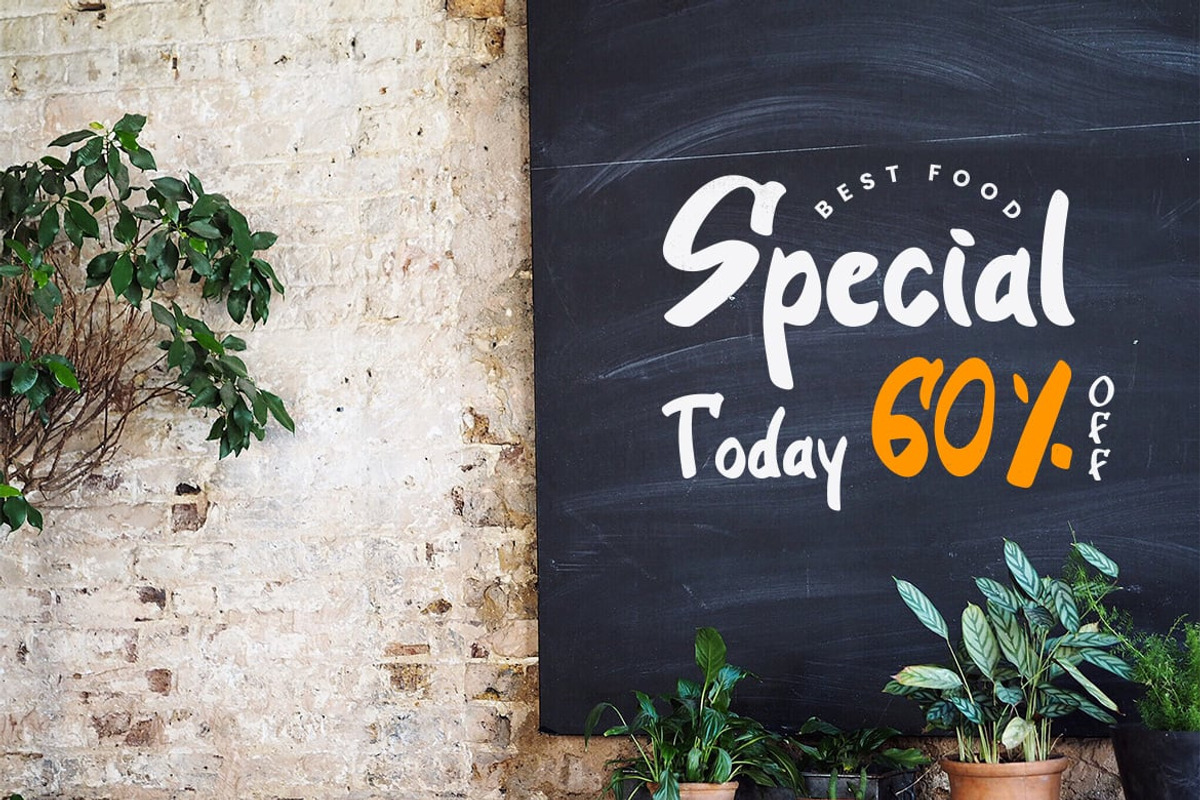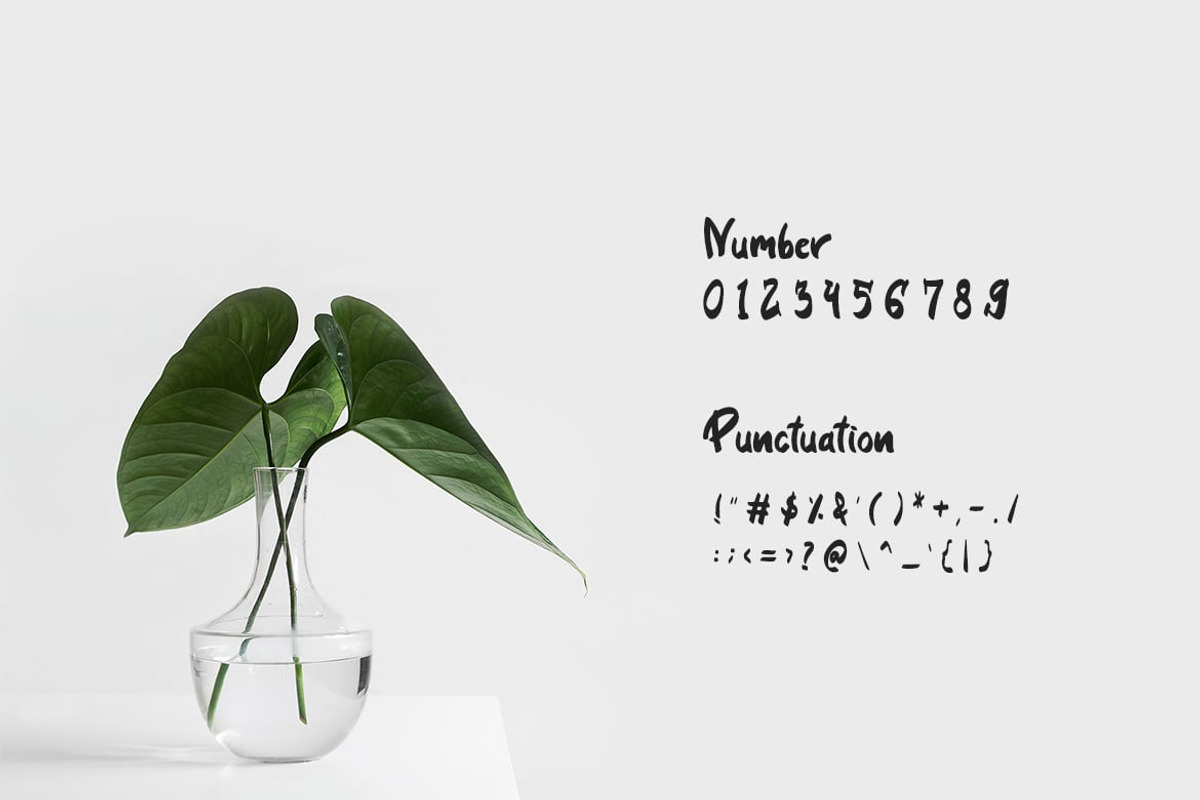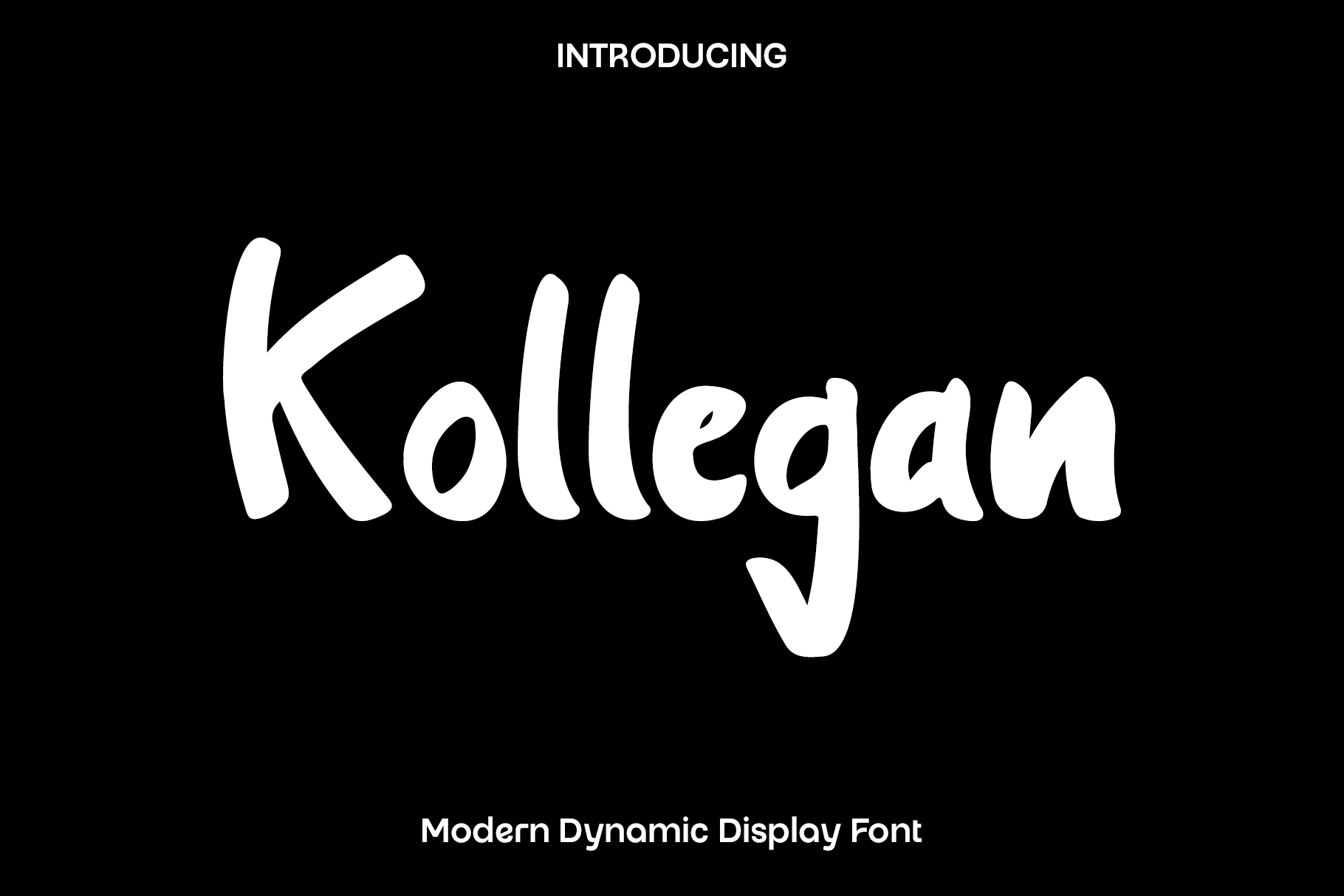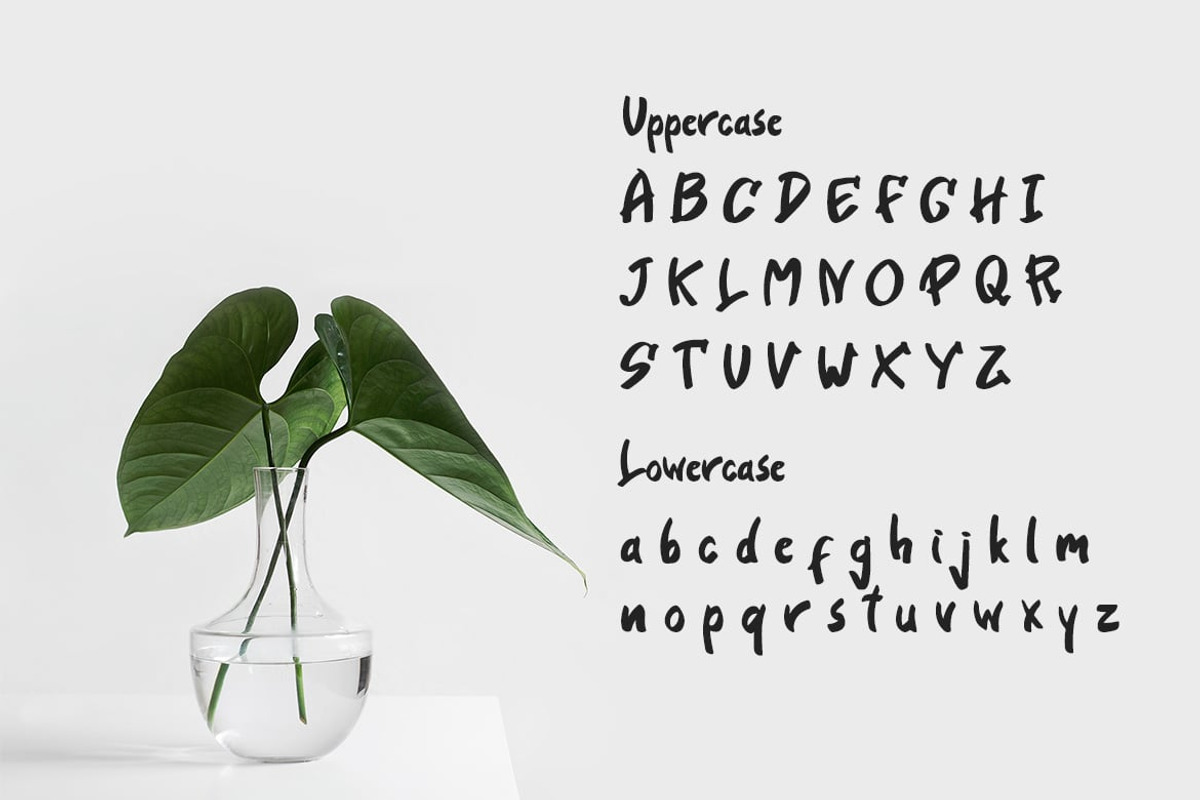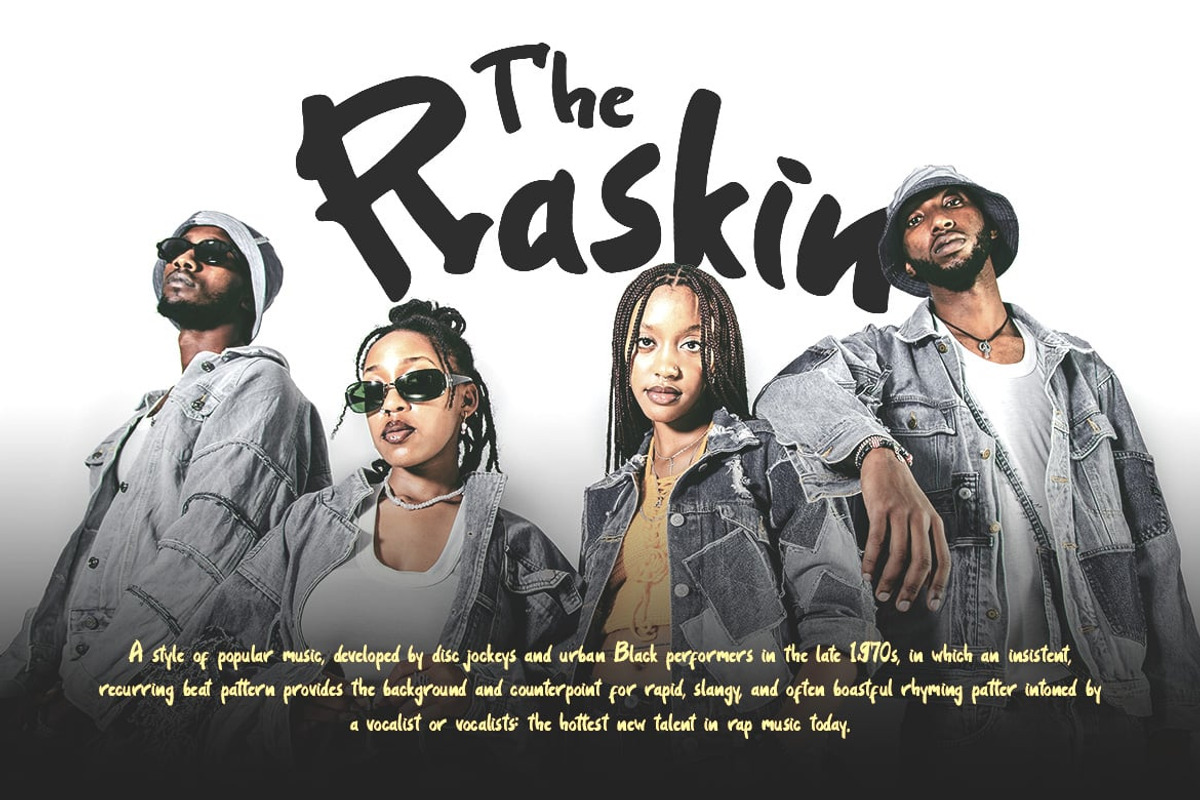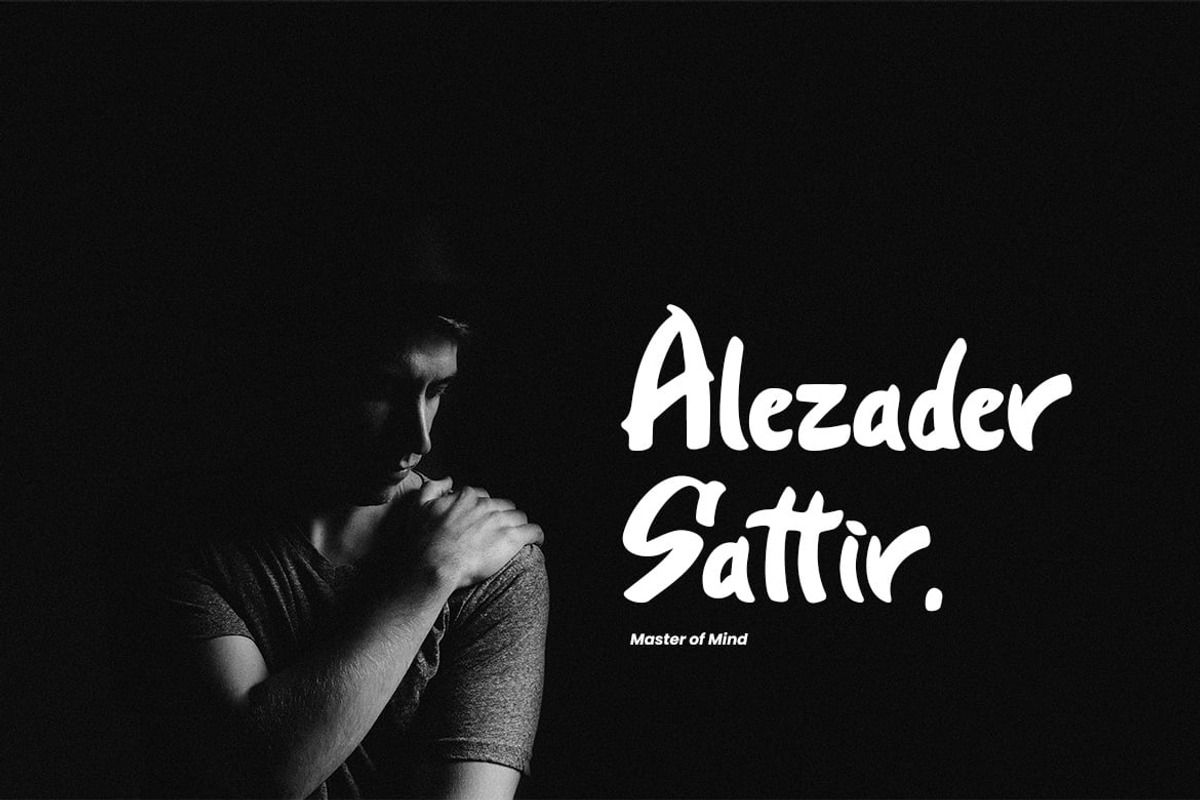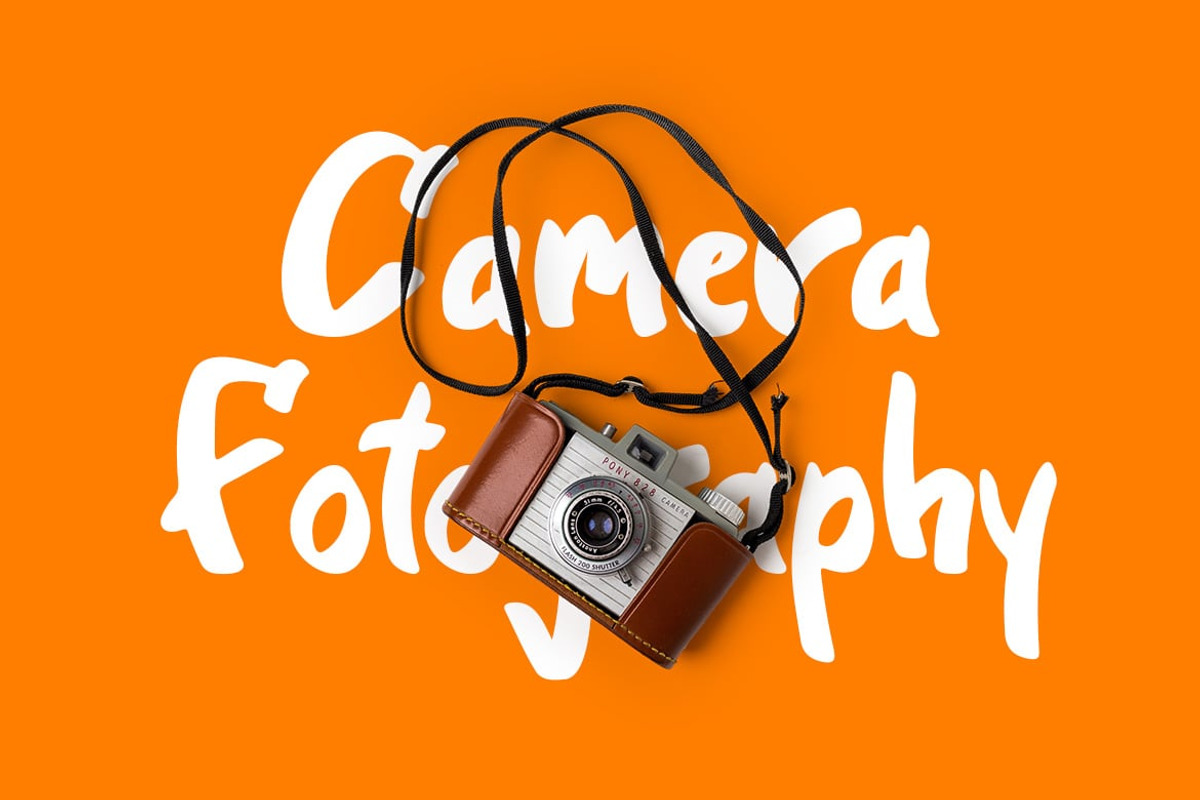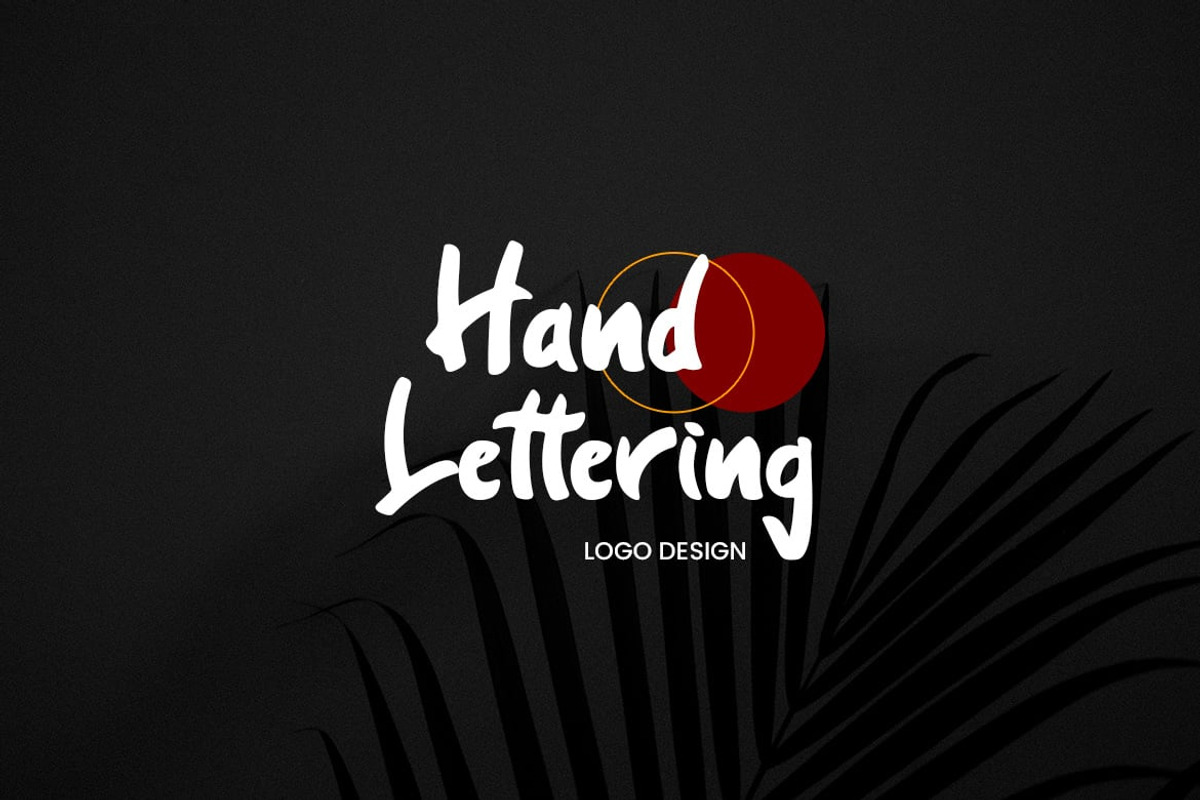
Kollegan - Modern Display Font
Kollegan is a bold modern display font created for designers who want typography that communicates speed, confidence, and contemporary style. Inspired by modern architecture, dynamic movement, and sharp geometric forms, Kollegan features distinctive cutout details and a powerful slanted structure that creates an energetic visual impact. Every character is carefully crafted to deliver strong readability while adding a unique personality that makes headlines and branding instantly memorable.
Perfect for posters, menu designs, flyers, product packaging, logos, monograms, sports branding, streetwear, music events, advertising campaigns, social media graphics, and creative editorial layouts, Kollegan adapts effortlessly to both print and digital projects. Its bold construction and dynamic appearance make it an excellent choice for designs that demand attention while maintaining a clean and professional aesthetic.
Designed for maximum creative flexibility, Kollegan includes stylish ligatures that allow designers to create distinctive wordmarks and custom typography with ease. Whether you are developing a modern brand identity, creating promotional materials, or designing impactful headlines, Kollegan delivers the energy and originality needed to make your work stand out.
With its modern character, premium craftsmanship, and versatile design, Kollegan transforms ordinary text into a bold visual statement. It is an essential addition to every designer's font collection for creating contemporary branding, advertising, and display typography with confidence and style.
Kollegan Font Features:
• Modern dynamic display style
• Unique ligature characters
• Uppercase and lowercase letters
• Numerals and punctuation
• Perfect for posters, menus, flyers, logos, packaging, monograms, branding, and advertising
• Suitable for both print and digital projects